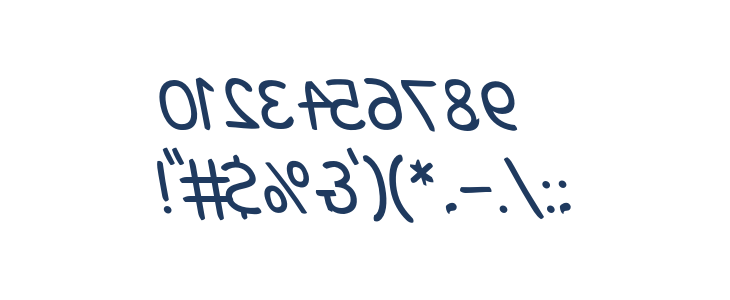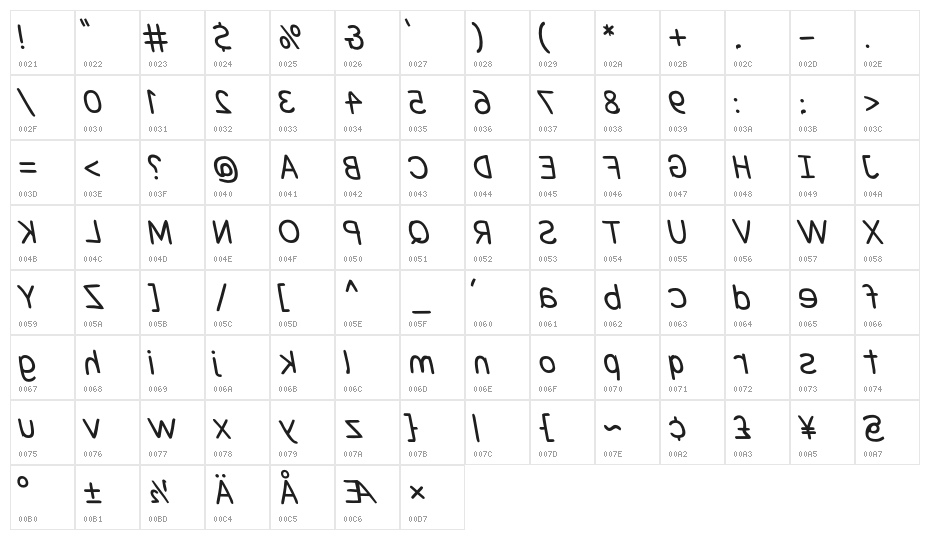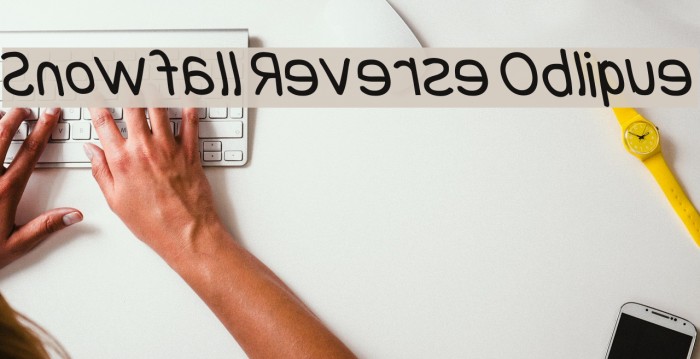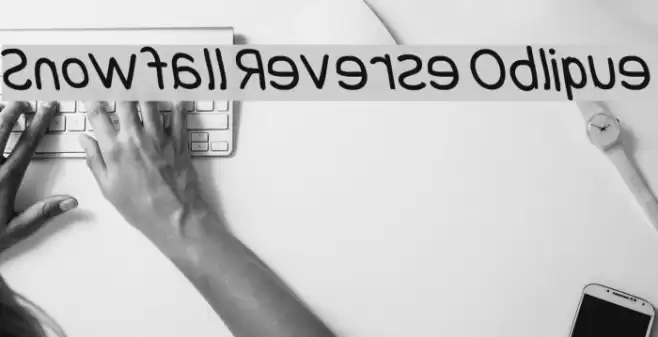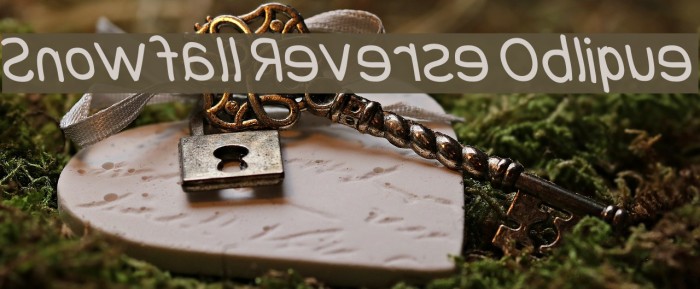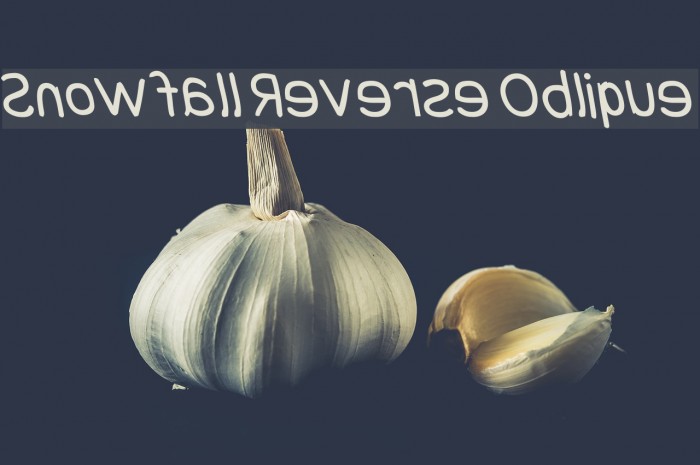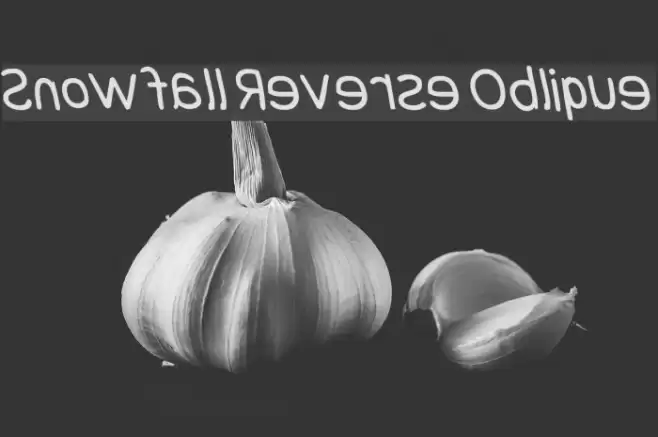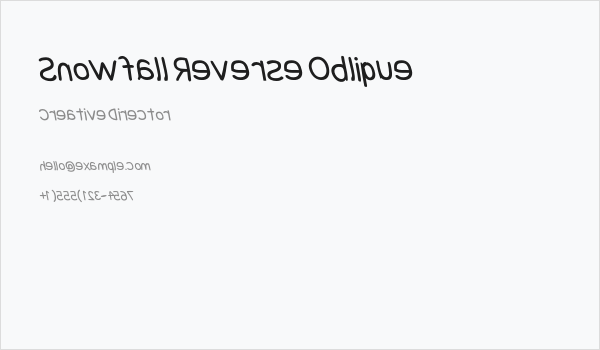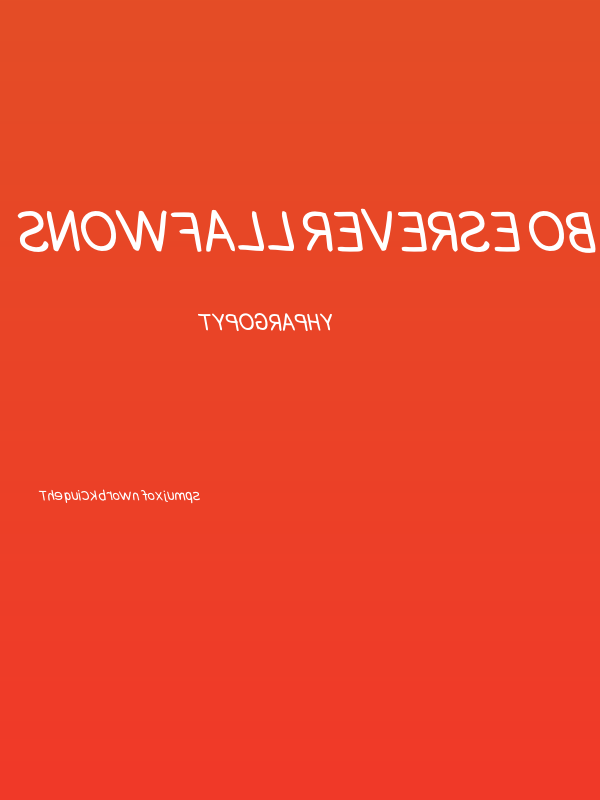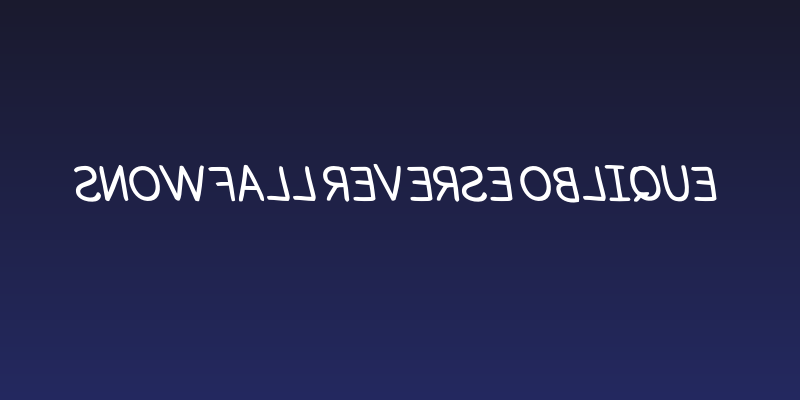
Snowfall Reverse Oblique Font
Snowfall Reverse Oblique Description
This playful and dynamic font features a reverse oblique style, giving it a unique and whimsical appearance. The characters are slightly tilted backward, creating a sense of movement and energy. The strokes are smooth and rounded, contributing to a friendly and approachable look. The font maintains consistent stroke thickness, offering a medium contrast that enhances readability while retaining its distinctive style. The spacing between characters is normal, ensuring clarity and legibility across various text sizes. This font's overall style is modern and decorative, making it suitable for creative and informal applications.